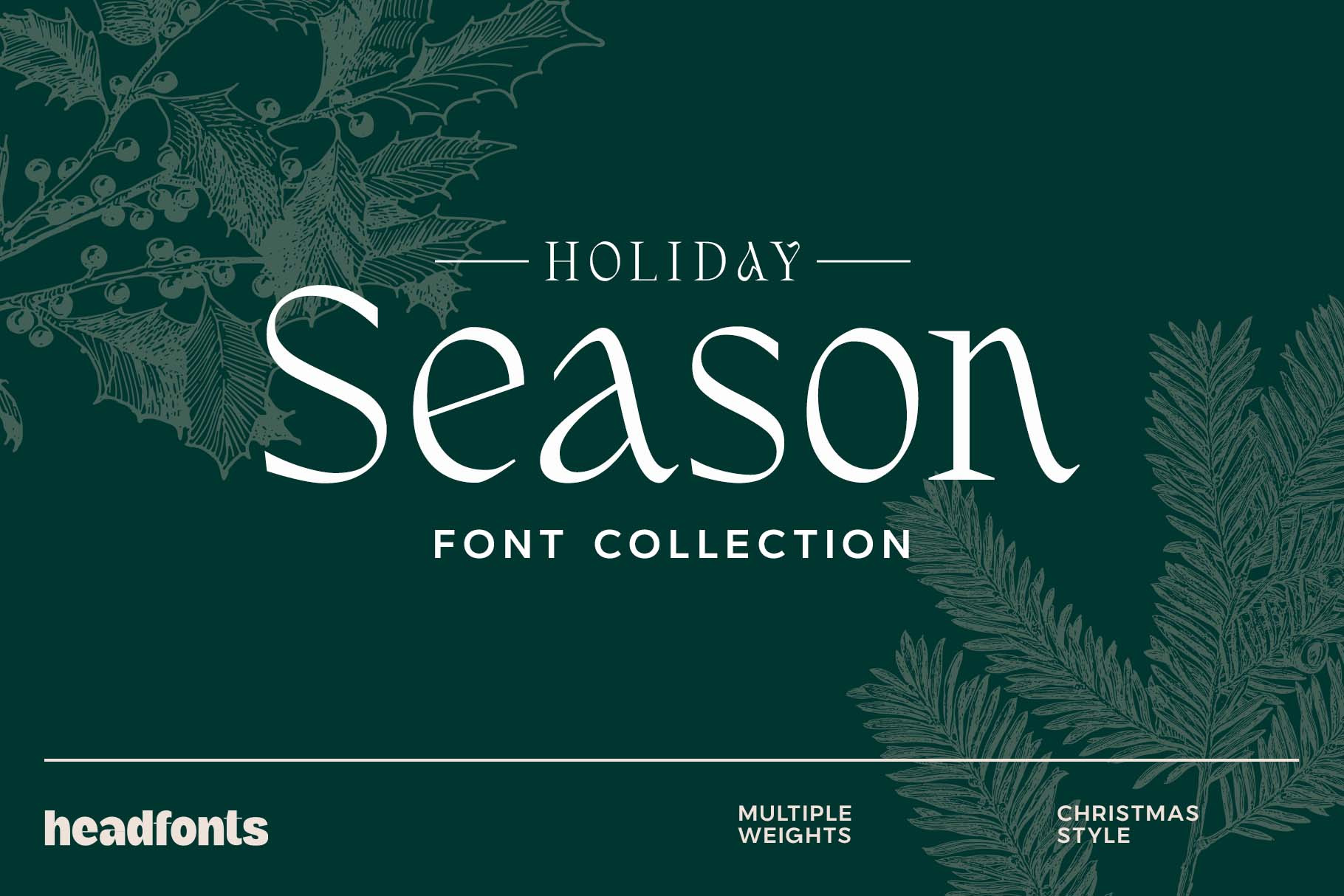
Holiday Season | Christmas Fonts
Introducing The Holiday Season Fonts, a contrasting pair of festive fonts. One decorative, while the other one, a simple and elegant sans serif, together make the best duo for your Christmas designs. This pairing is versatile, being a combination of an exquisite font like Fernhead with Hubhead, a utilitarian font with modest decorative accents, and a more minimal feel than his companion. You can use this merry and bright duo for almost any festive design project that requires a glamorous, decorative whisper. Merry Christmas to you all!